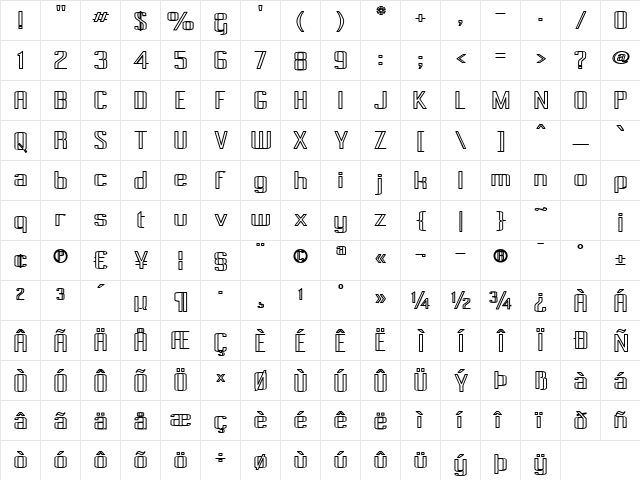
Pecot Outline Bold Regular
Design Context for Pecot Outline Bold Typeface
Pecot Outline Bold brings ornamental detail and strong personality to headlines and identities, where visual impact matters more than quiet functionality. The heavy weight commands attention and anchors typographic hierarchies.
Font Pairing: Pair with a clean neutral sans-serif for body copy to let Pecot Outline Bold's character lead without overwhelming the composition.
Pro Tip: Treat Pecot Outline Bold as the centrepiece of your typographic hierarchy. One strong heading set in a decorative face can carry an entire layout.